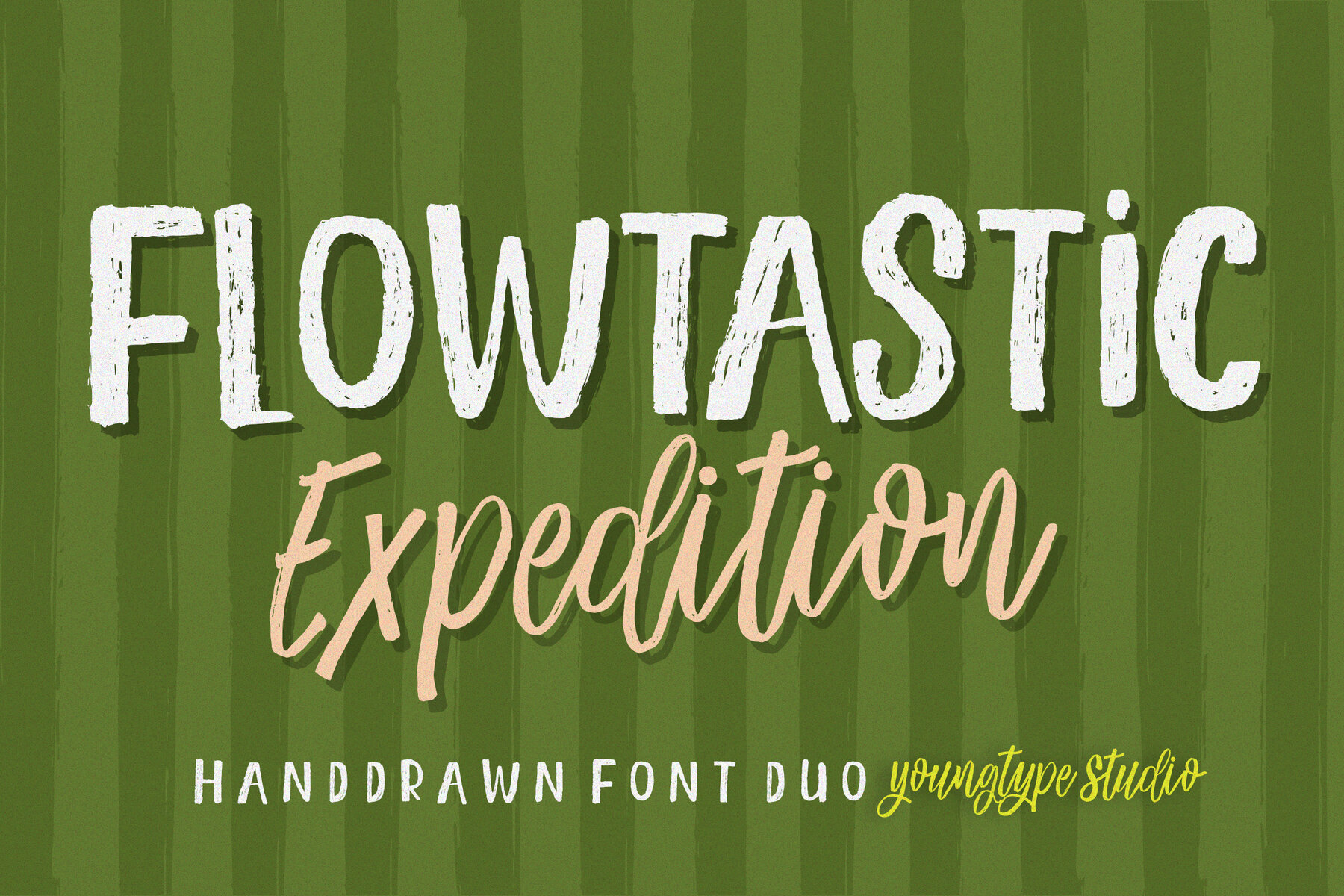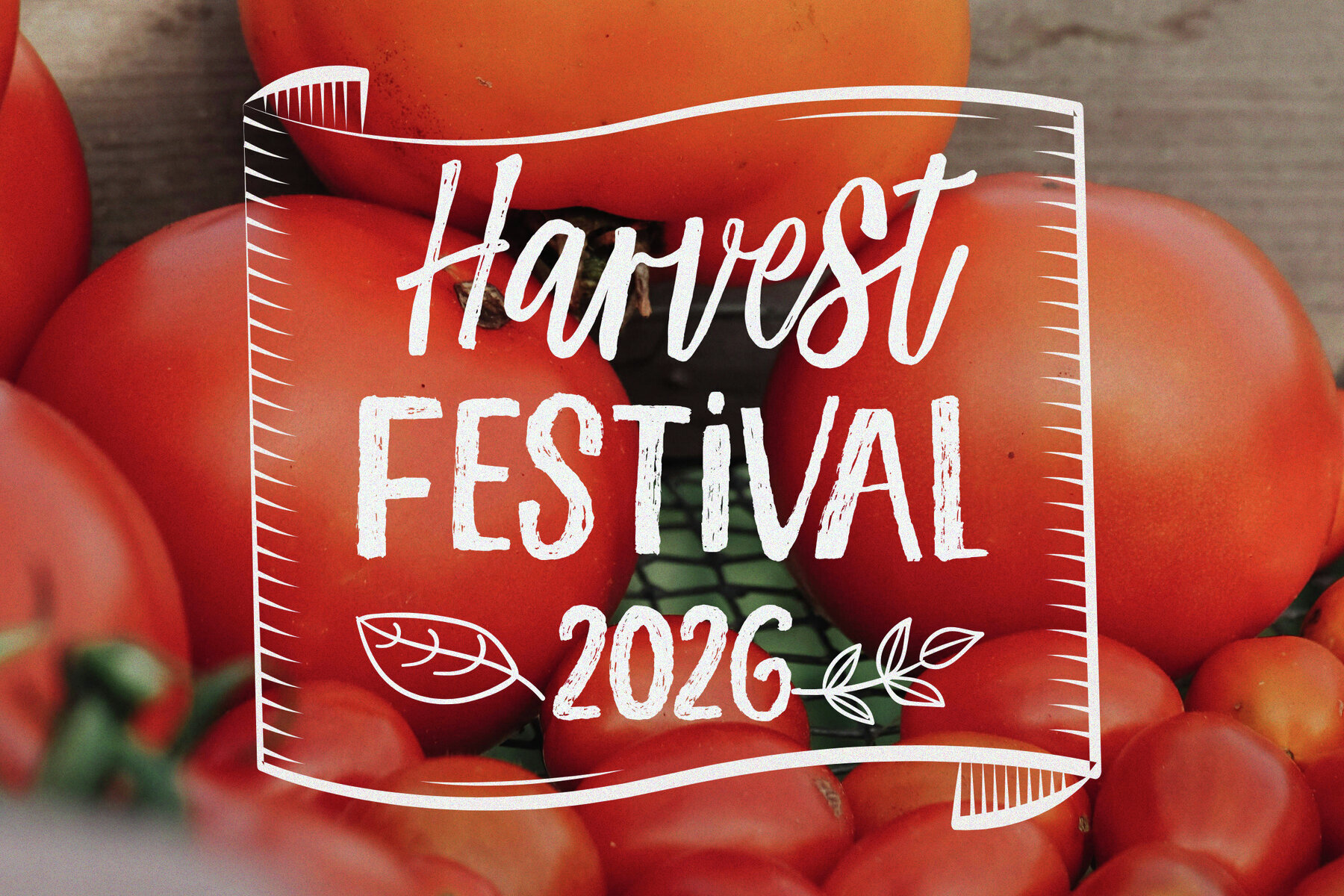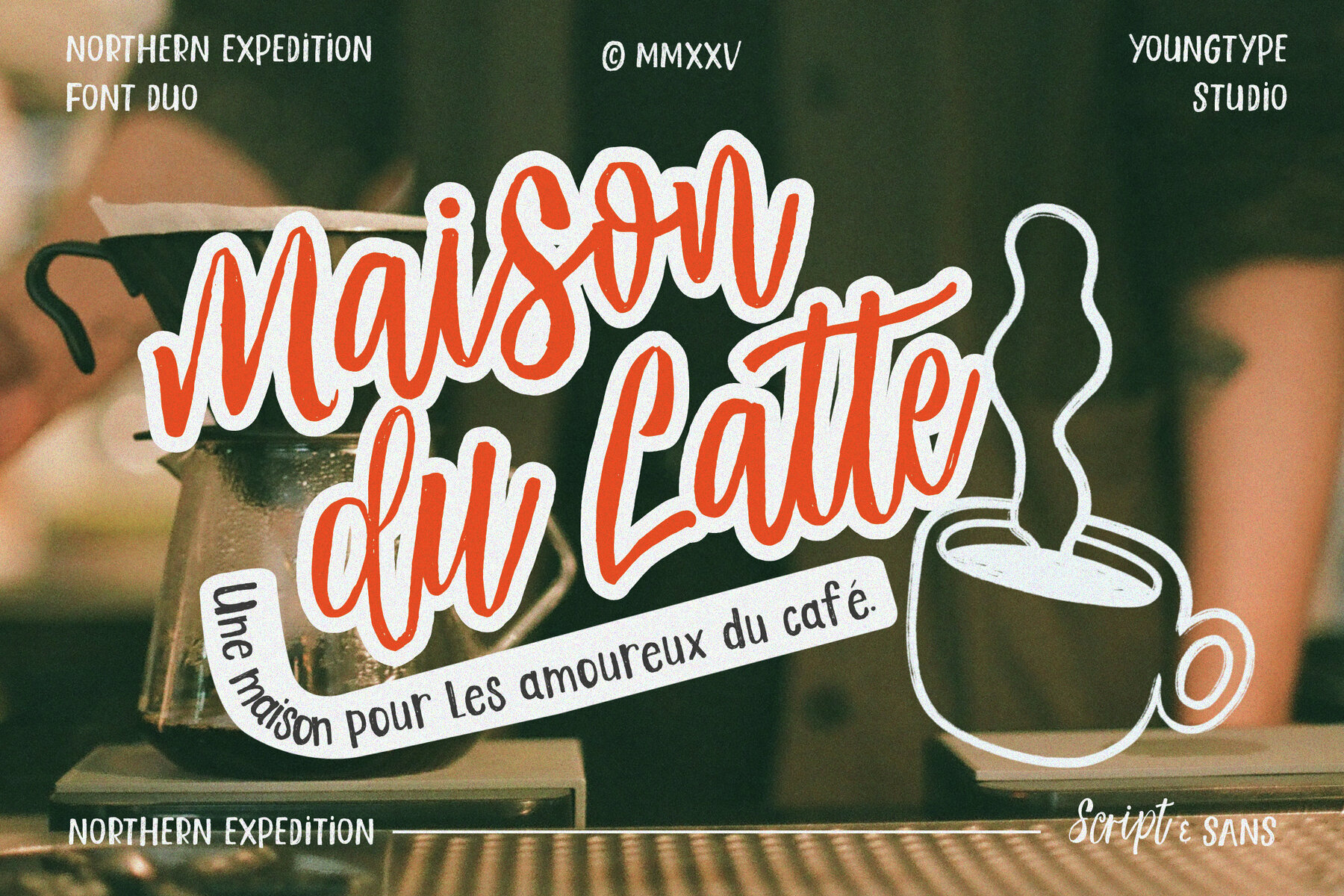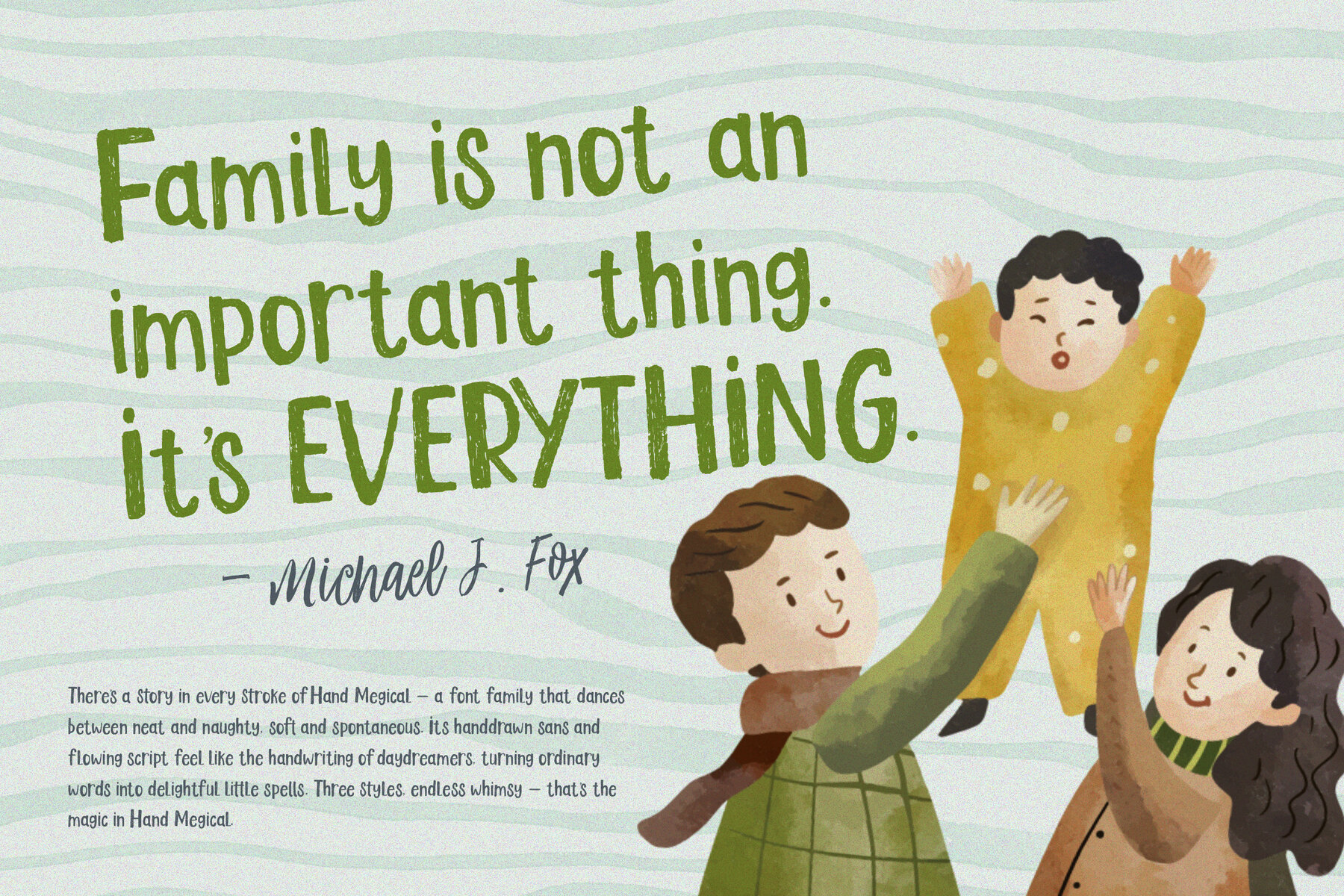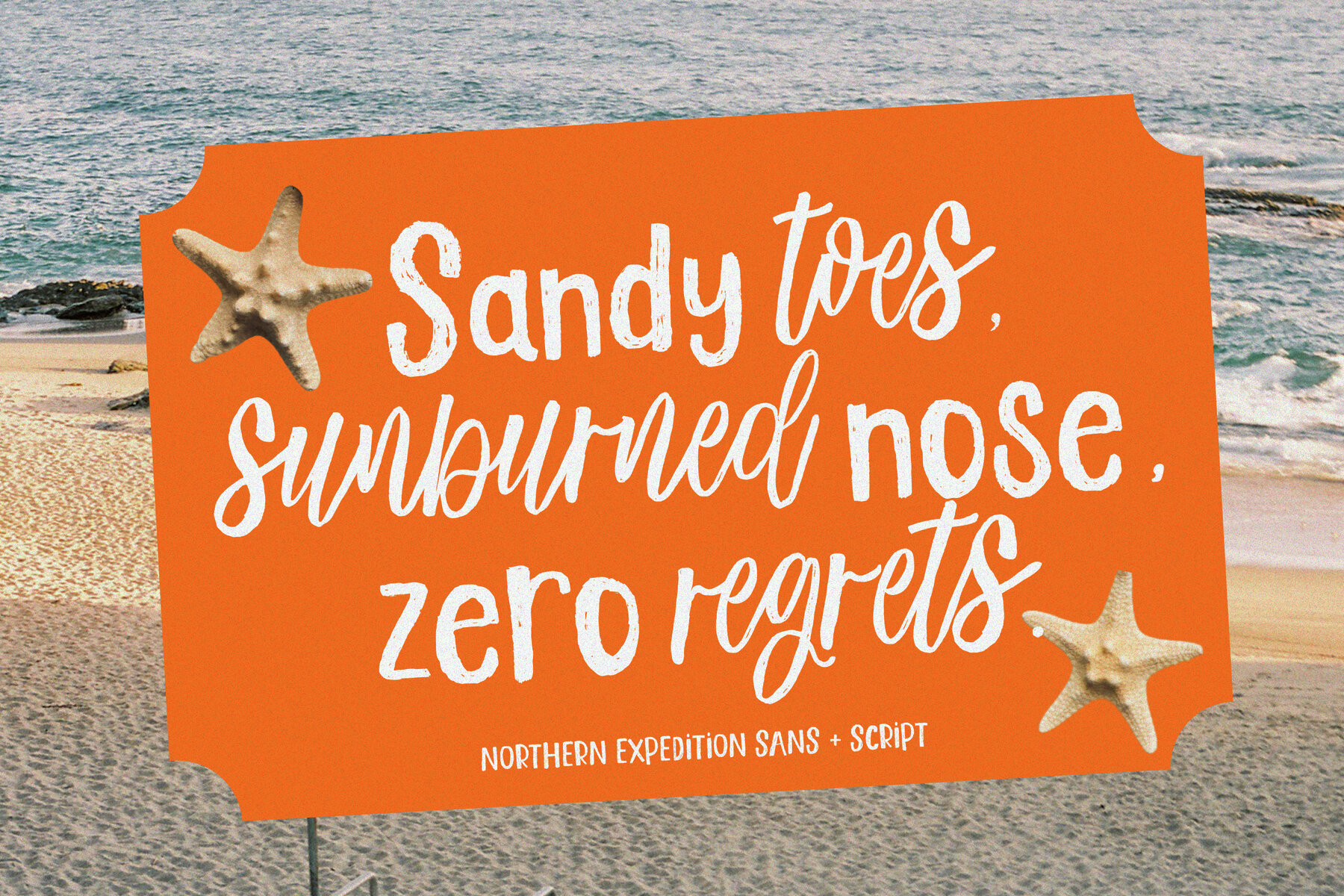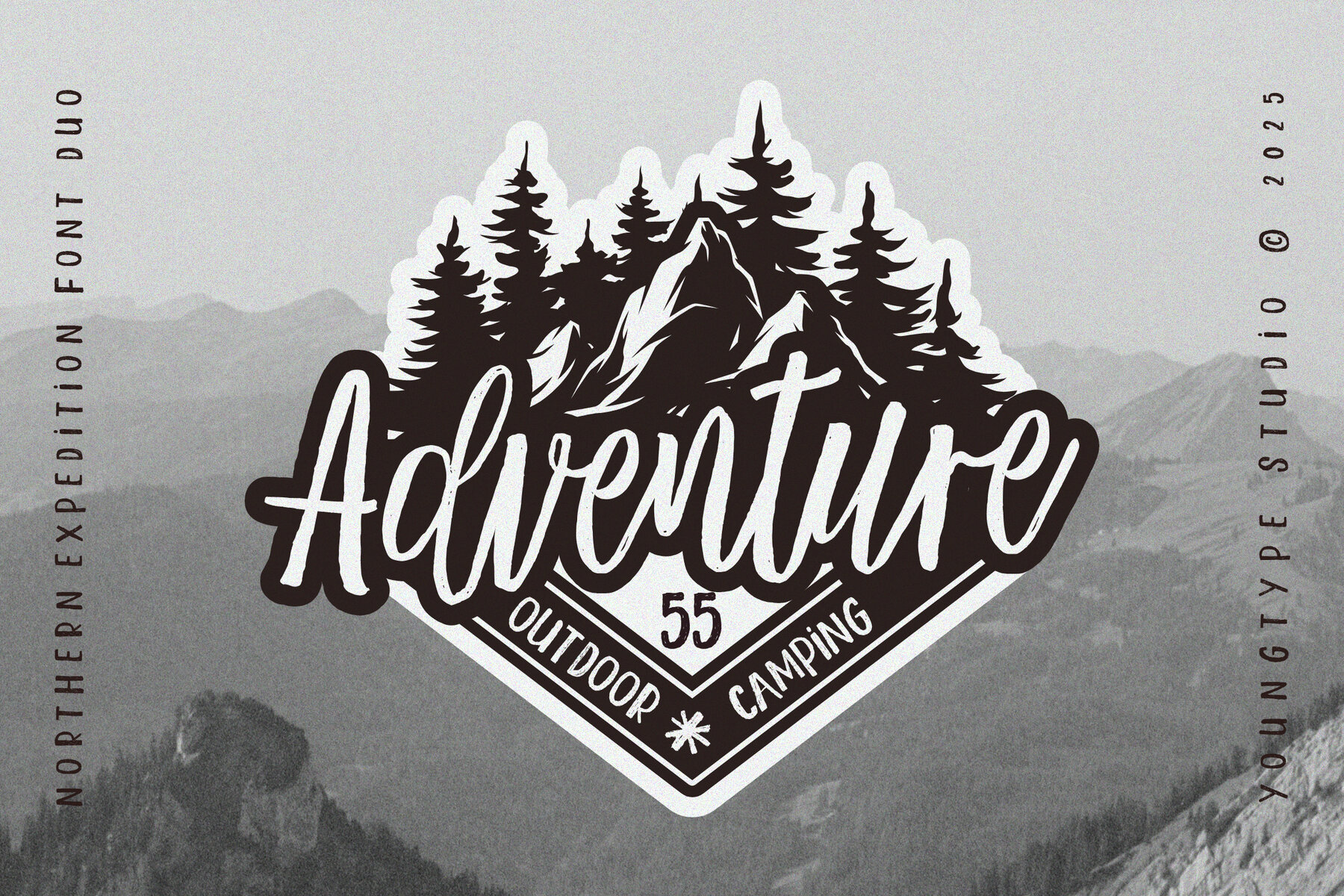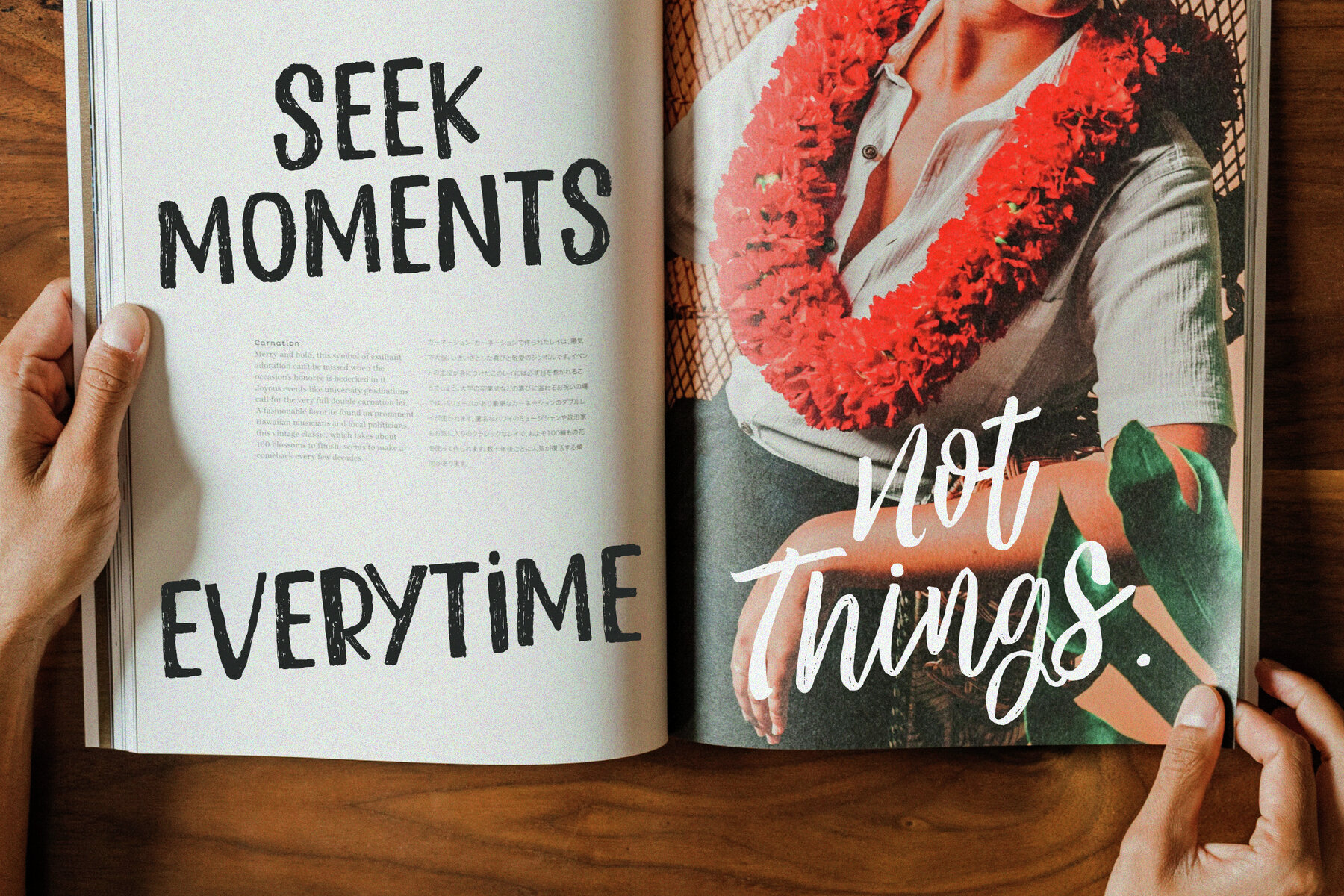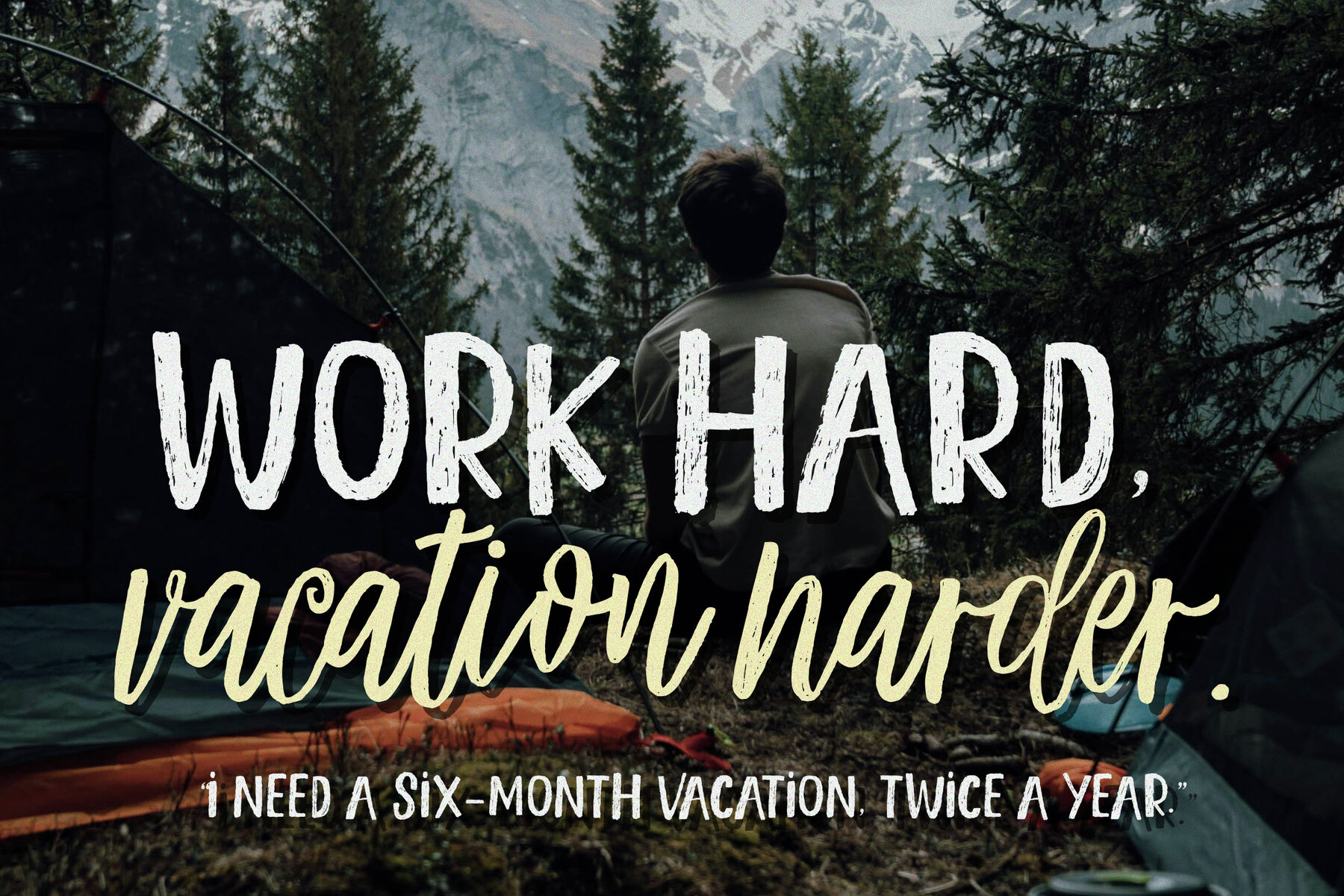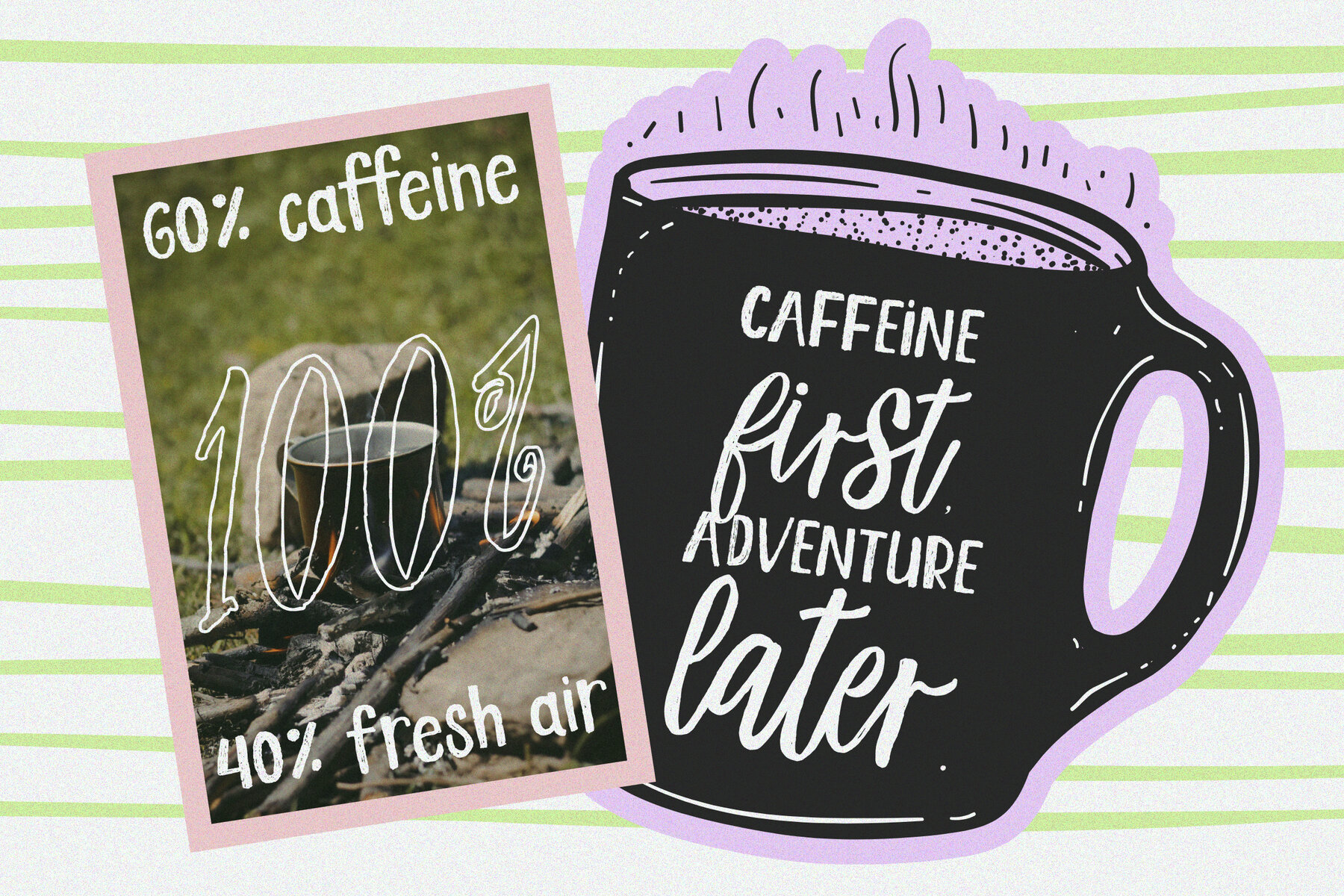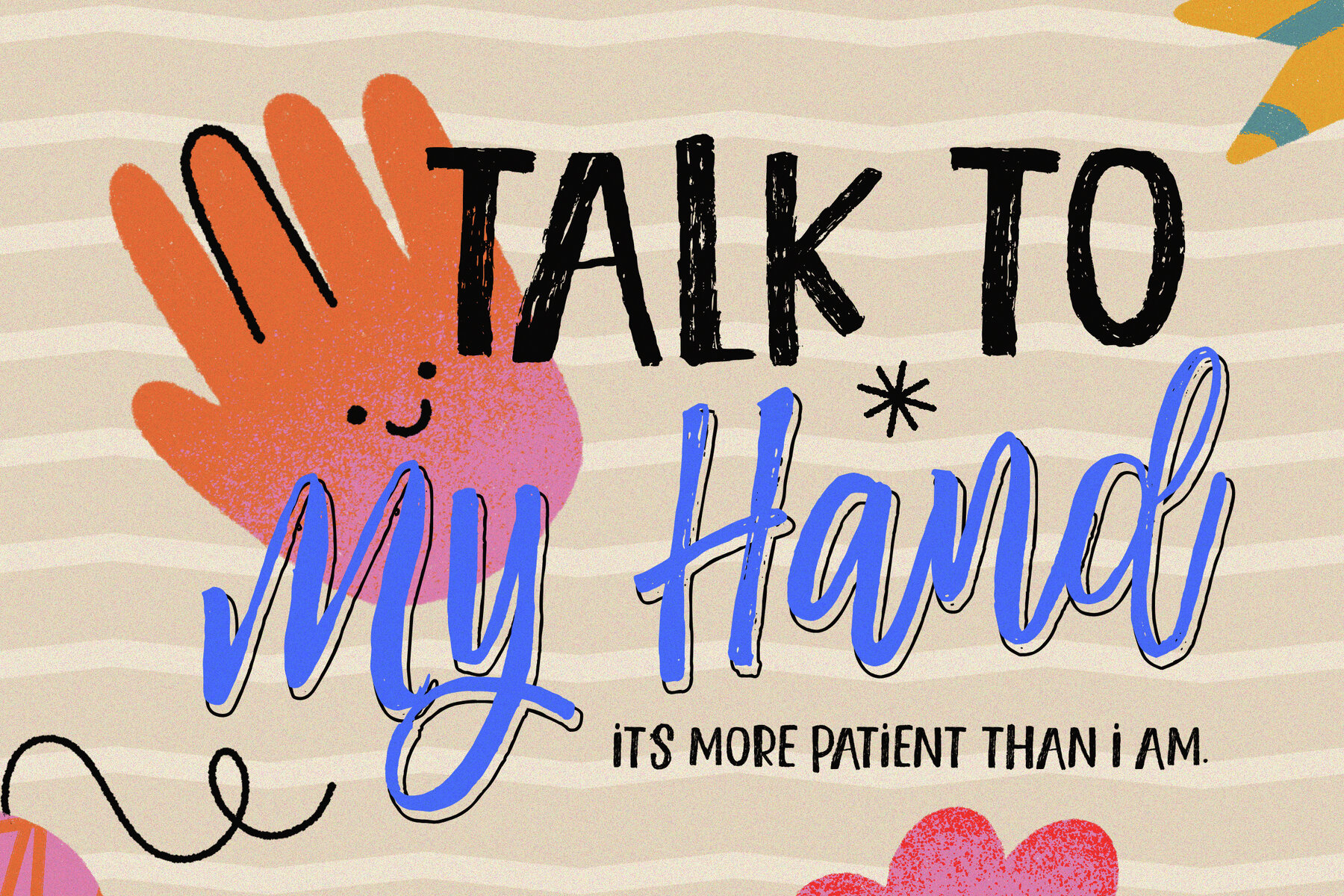
Flowtastic Expedition Font
Flowtastic Expedition is a charming hand-drawn font duo that merges bold textured lettering with a smooth, natural script. This unique combination exudes a cheerful and adventurous spirit, ideal for creative endeavors like posters, branding, packaging, invitations, and social media designs. Its handcrafted style infuses warmth and authenticity, ensuring each creation feels personalized and character-rich.Flowtastic Expedition: A Playful Hand-Drawn Font Duo